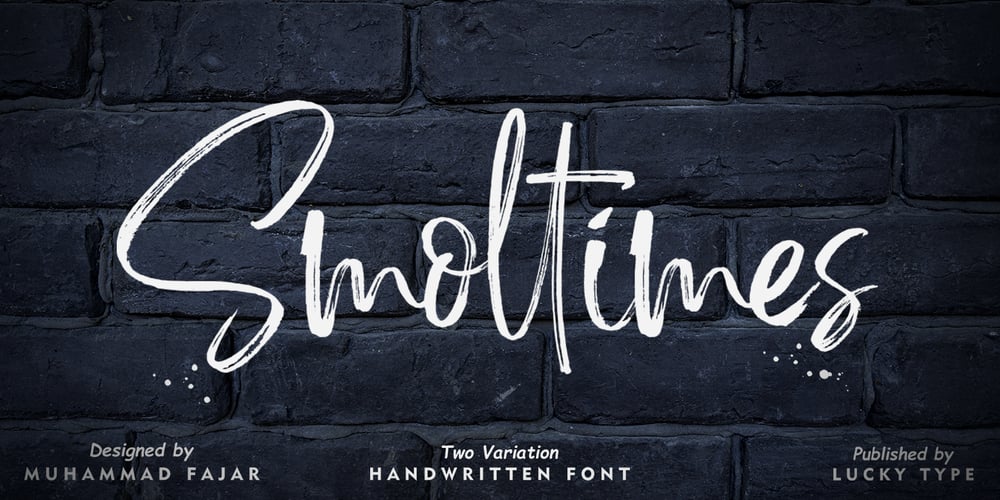
Smoltimes Font Family was designed by Muhammad Fajar and published by Lucky Type. Smoltimes contains 2 styles and family package options. Smoltimes are two variations of a new modern brush font with irregular baselines. a contemporary approach to design, handcrafted in nature, perfect for use in title designs such as clothing, invitations, book titles, stationery designs, quotes, branding, logos, greeting cards, t-shirts, packaging designs, posters and more.Complete with upper and lowercase letters, as well as multi-language support, numbers, punctuation, and multiple ligatures.Thank you very much for looking and let me know if you have any questions.